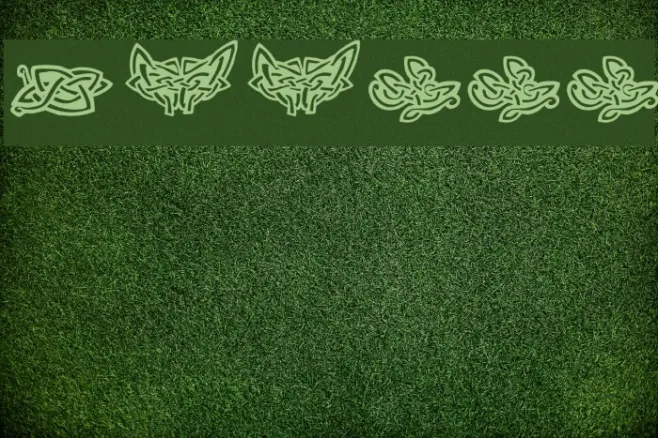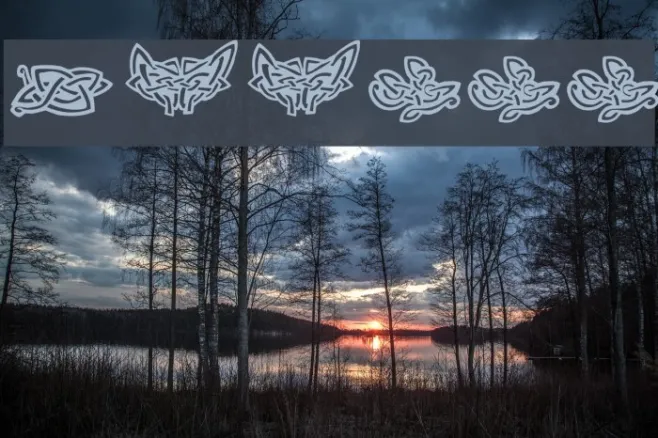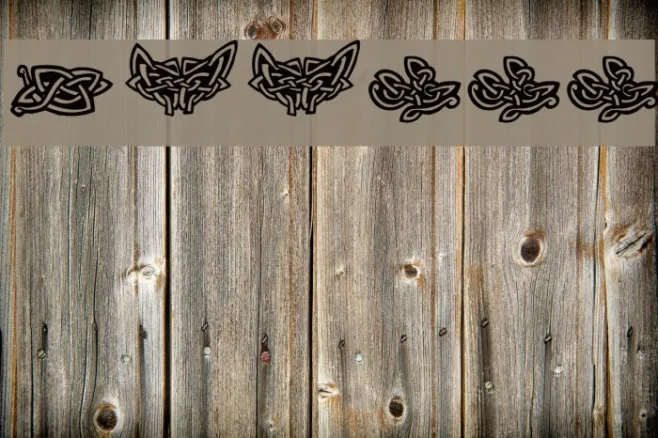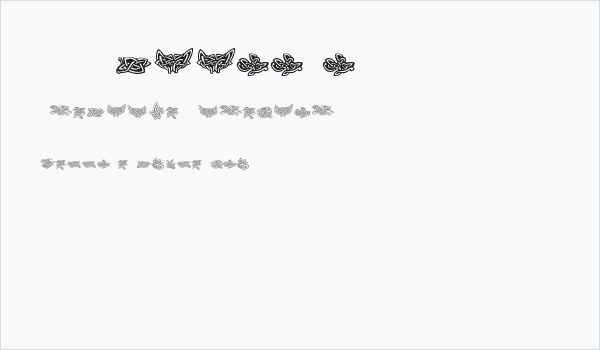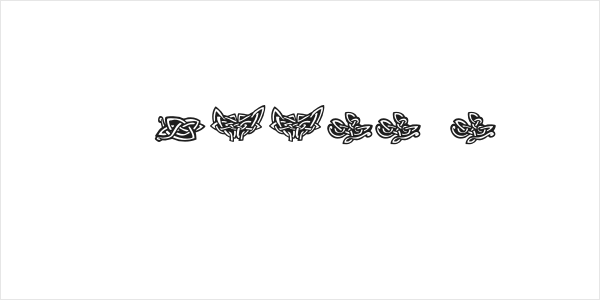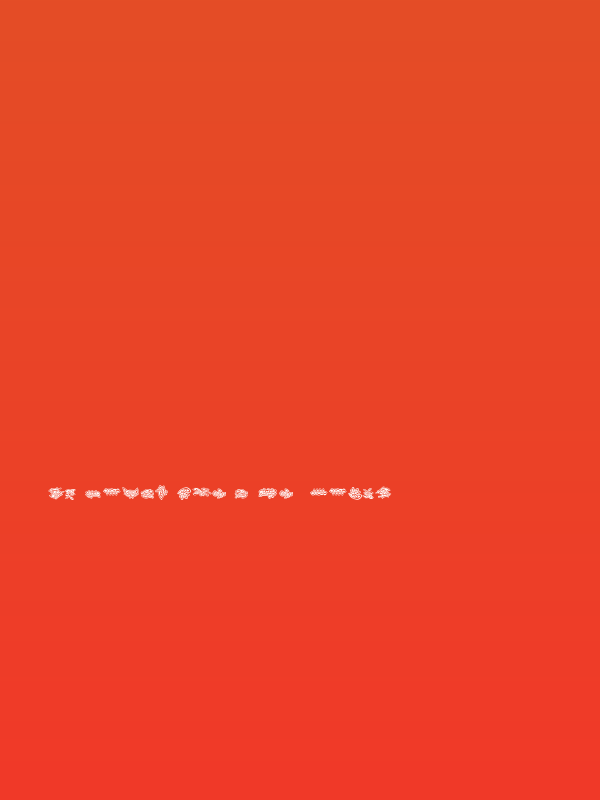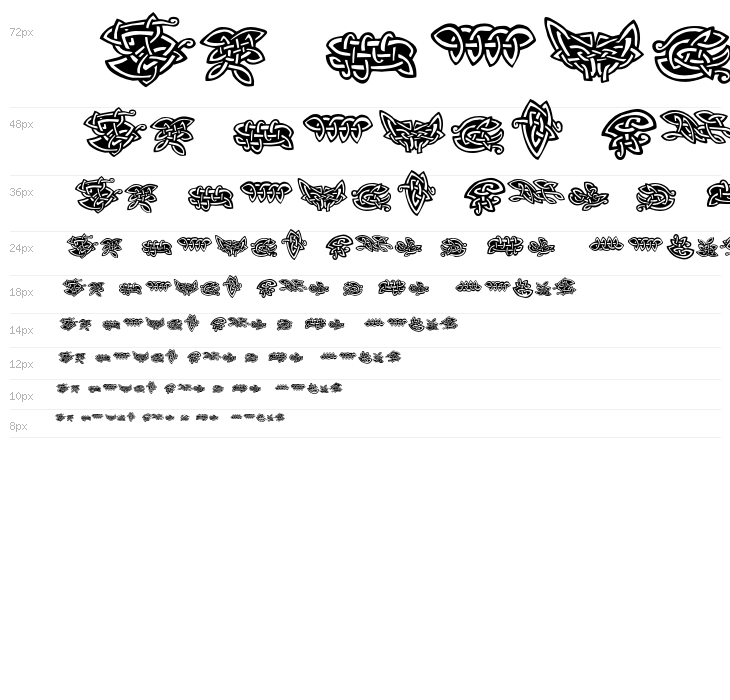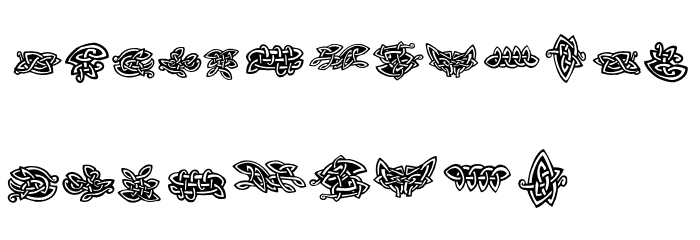
FE-TattooNo.2 Font
FE-TattooNo.2 Description
This font features an intricate and decorative style, reminiscent of traditional tattoo art. Each character is uniquely designed with elaborate curves and interwoven lines, creating a sense of complexity and artistry. The bold outlines and detailed patterns give it a striking appearance, making it stand out in any design. The font's ornamental nature suggests a strong influence from tribal and Celtic motifs, making it ideal for projects that require a bold and artistic touch. Its unique style is perfect for creating eye-catching headlines or logos that demand attention.
Use CaseHeadlines, Logos, Artistic designs
Proposed ProjectsIdeal for tattoo designs, artistic posters, album covers, and branding that requires a bold, artistic flair.